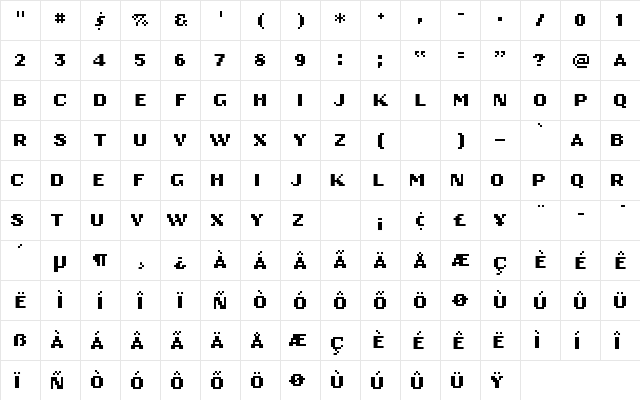
OaklandSix Medium
Design Context for OaklandSix
OaklandSix is a composed and adaptable typeface that performs quietly and consistently across a wide range of design contexts.
Pro Tip: Use OaklandSix in both headline and body roles to test its range before committing to a single application.